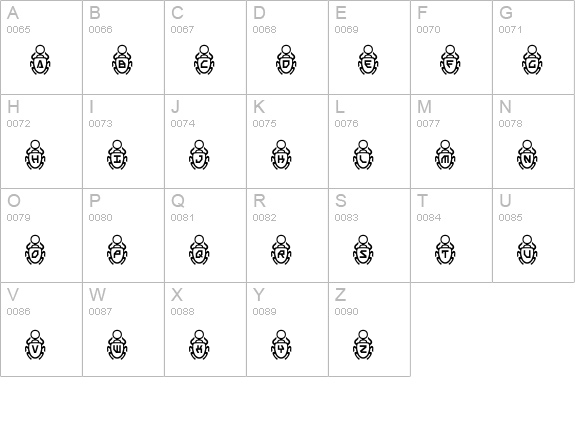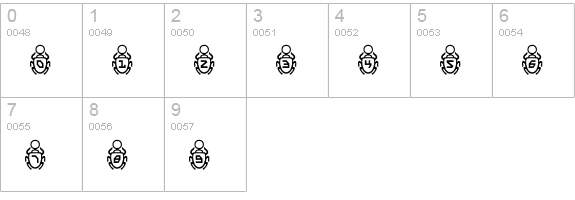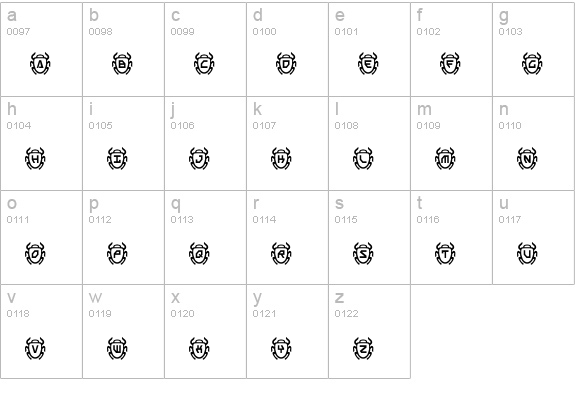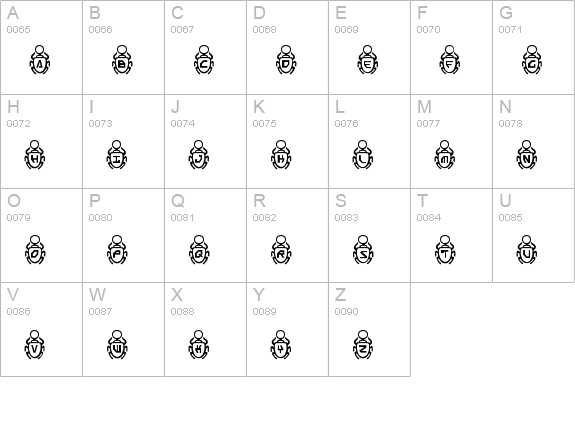
Scarab font is a unique and versatile typeface that exudes elegance and sophistication. Its intricate details and distinctive design make it a perfect choice for a wide range of design projects, from branding to editorial layouts. The sharp angles and clean lines of Scarab font give it a modern yet timeless appeal, making it suitable for both digital and print applications. What sets Scarab font apart is not just its aesthetic appeal, but also the fact that it is available for free download at FontsMarket.com. This means that designers and creatives can easily access and use this beautiful typeface in their projects without any financial barriers. Whether you're working on a logo, website, poster, or any other design project, Scarab font is sure to elevate your work with its distinct style and versatility. Download Scarab font today and add a touch of sophistication to your designs.